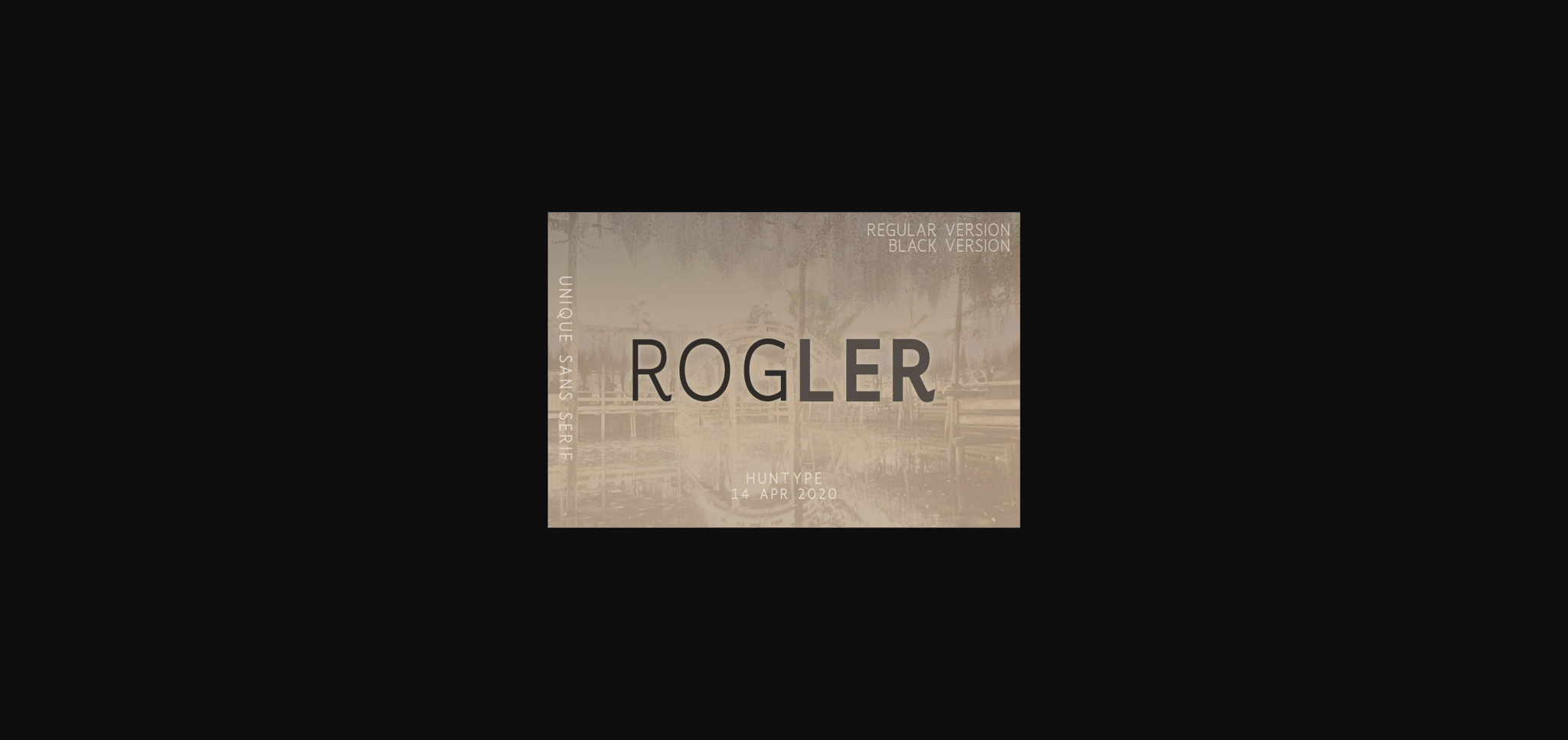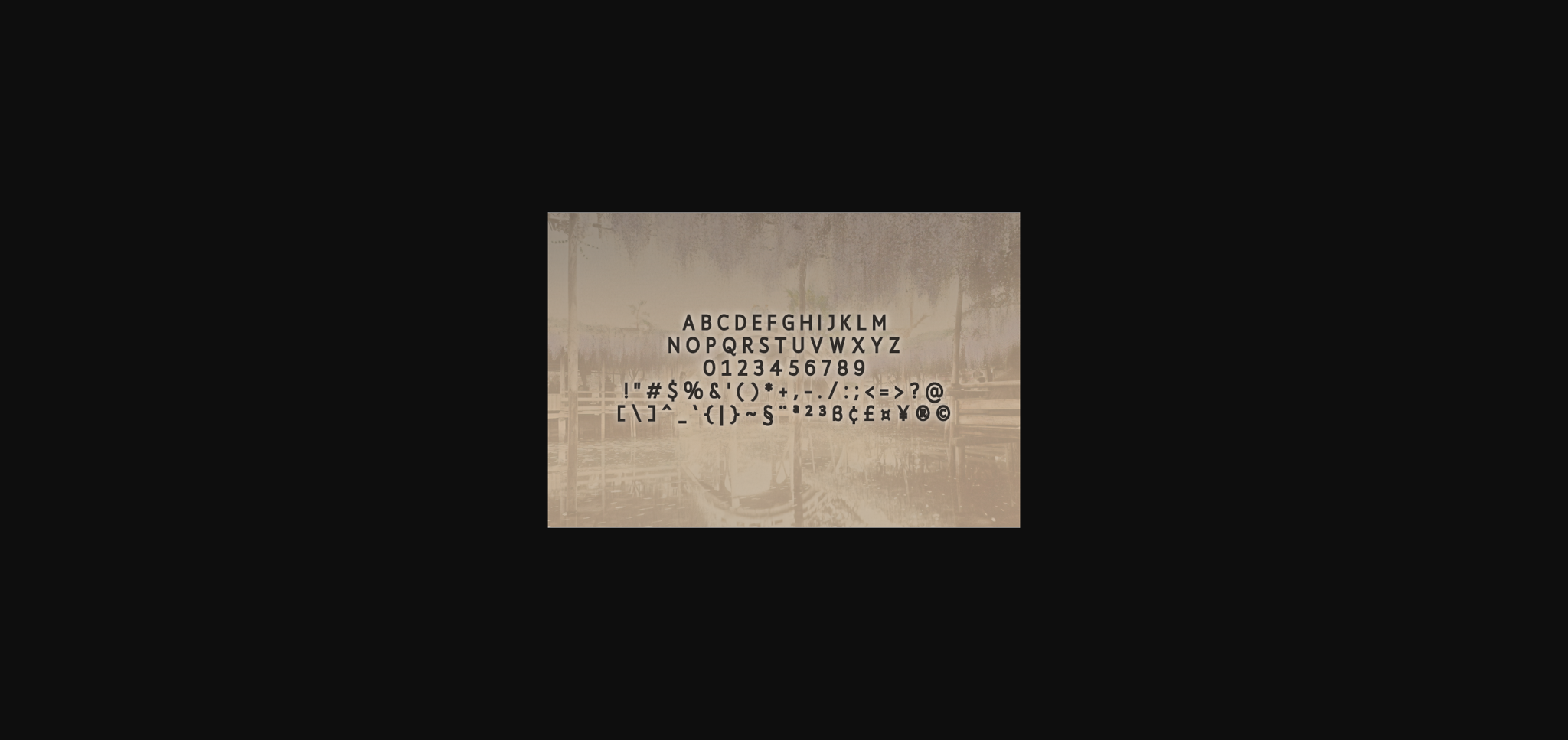
HomeSans Serif FontsRogler Font Sans Serif Fonts Rogler Font FacebookXPinterestWhatsApp 1 of 4 ... Rogler Font Poster 2... Rogler Font Poster 3... Rogler Font Poster 4... About Rogler Font Rogler is a simple and casual sans serif font with an undeniably clean feel. With its neat and beautiful arrangement of letters, this typeface will look outstanding in both formal and non-formal designs. DOWNLOAD NOW People also explored Panorama Font Perisha Font Alindra Monogram Font Almond Cupcakes Font Kamellia Font Sunday Morning Font Merry Christmas Font The Crafter Font Beans & Break Font 340 0 TagsRoglerRogler Font Previous articleBalibold FontNext articleBelong Font LEAVE A REPLY Cancel reply Comment: Please enter your comment! Name:* Please enter your name here Email:* You have entered an incorrect email address! Please enter your email address here Website: Save my name, email, and website in this browser for the next time I comment. Personal Use Free Bosk Personal Use Free Read more about this font Qiwqiw Personal Use Free Read more about this font Boston Traffic Personal Use Free Read more about this font Girls Personal Use Free Read more about this font BLOG Using Fonts in Digital Marketing: Tips to Strengthen Your Brand Identity In the realm of digital marketing, every visual element plays a crucial role in shaping a brand's identity, and fonts are no exception. The... Top 7 Google Fonts Alternatives for Faster and Privacy-Friendly Web Design (2025) Top 10 Handwritten Fonts That Elevate Your Designs 5 Fonts That Will Dominate Design Trends in 2026